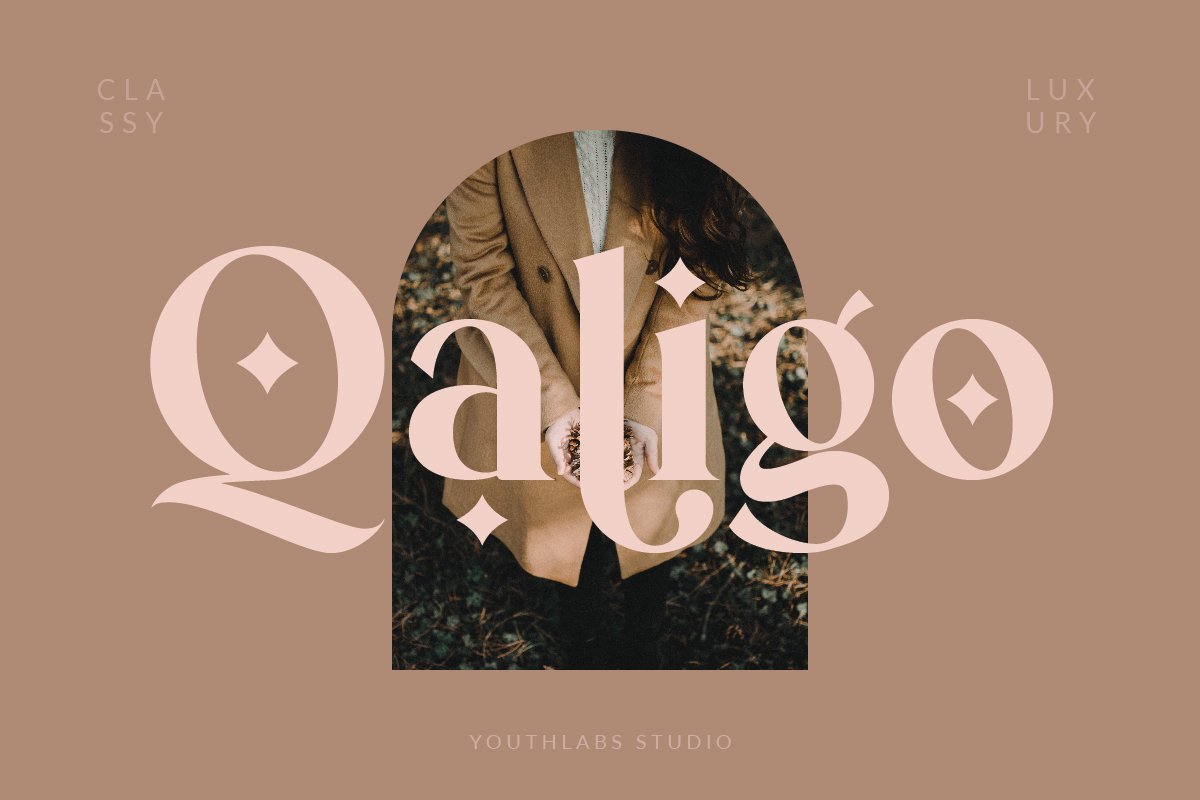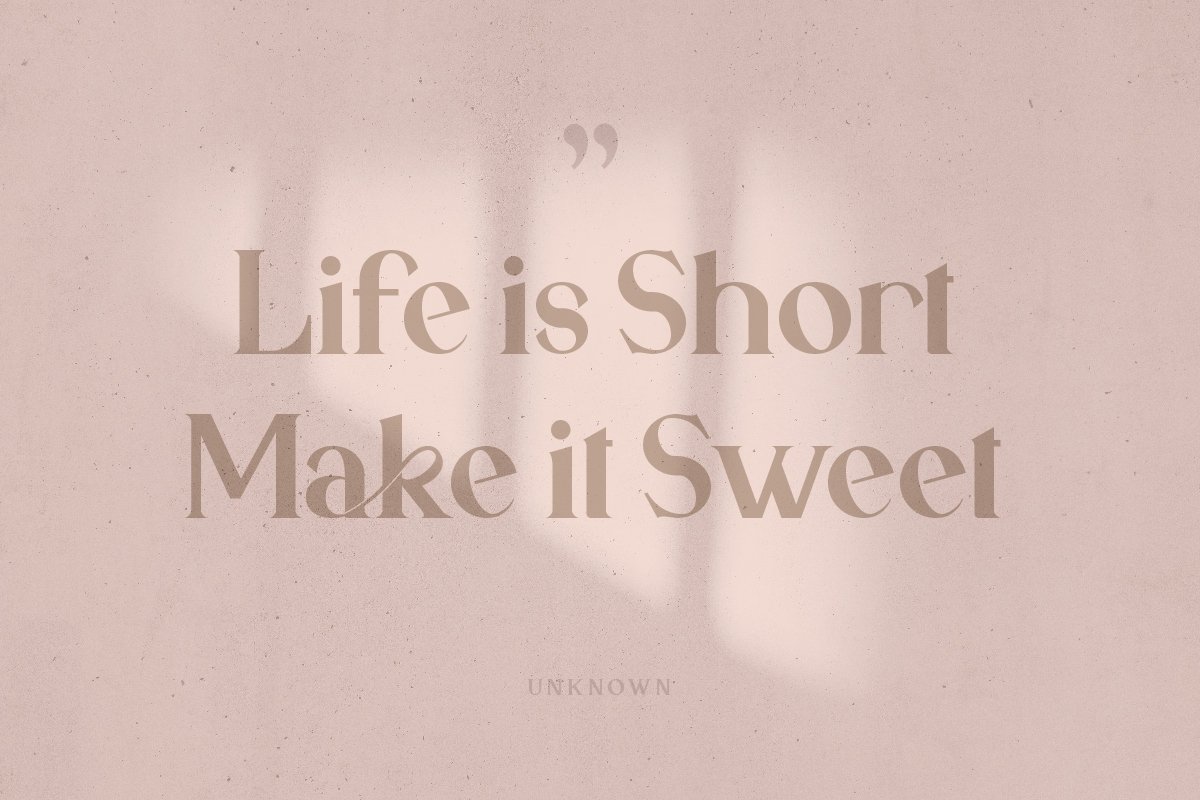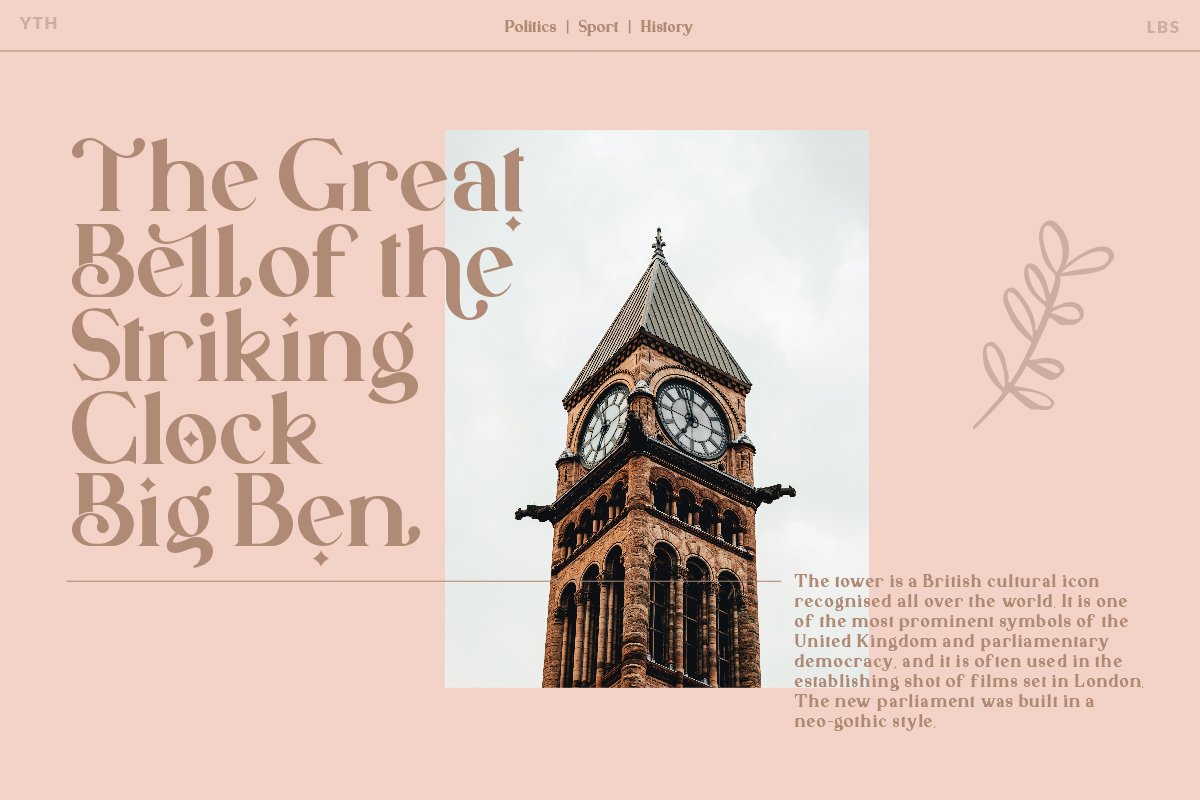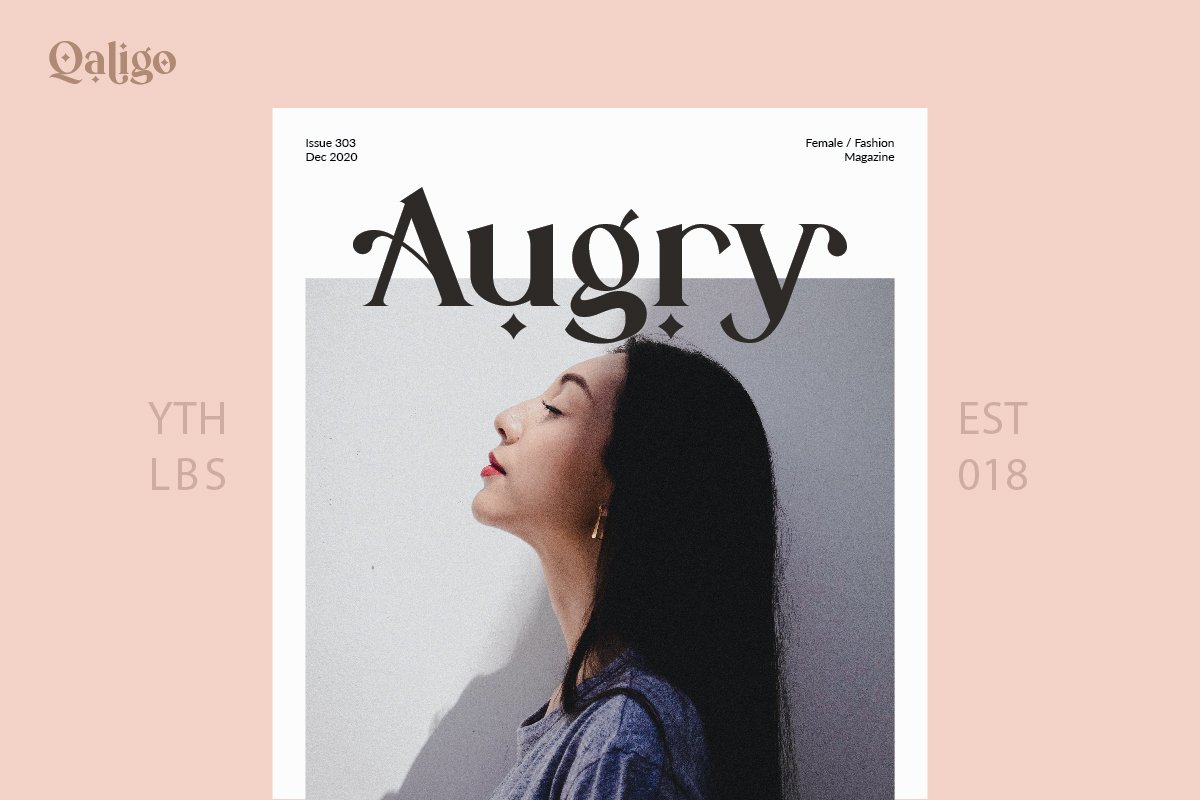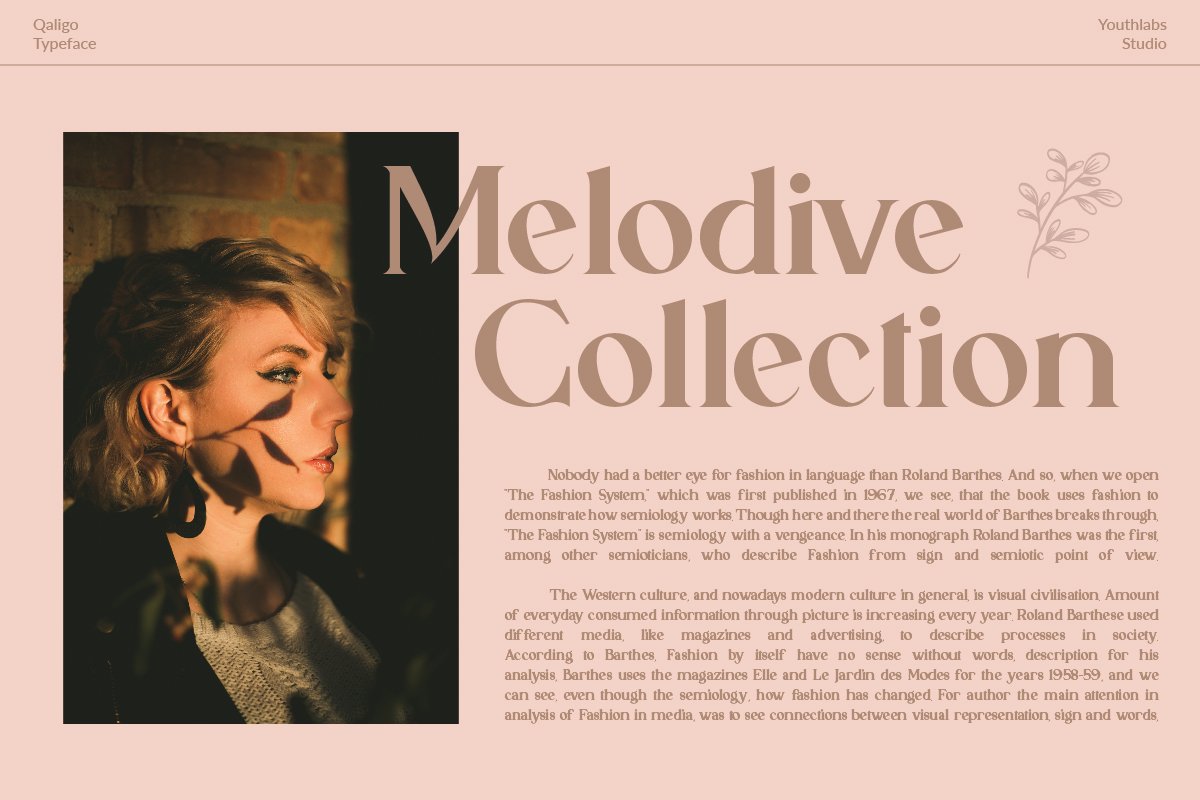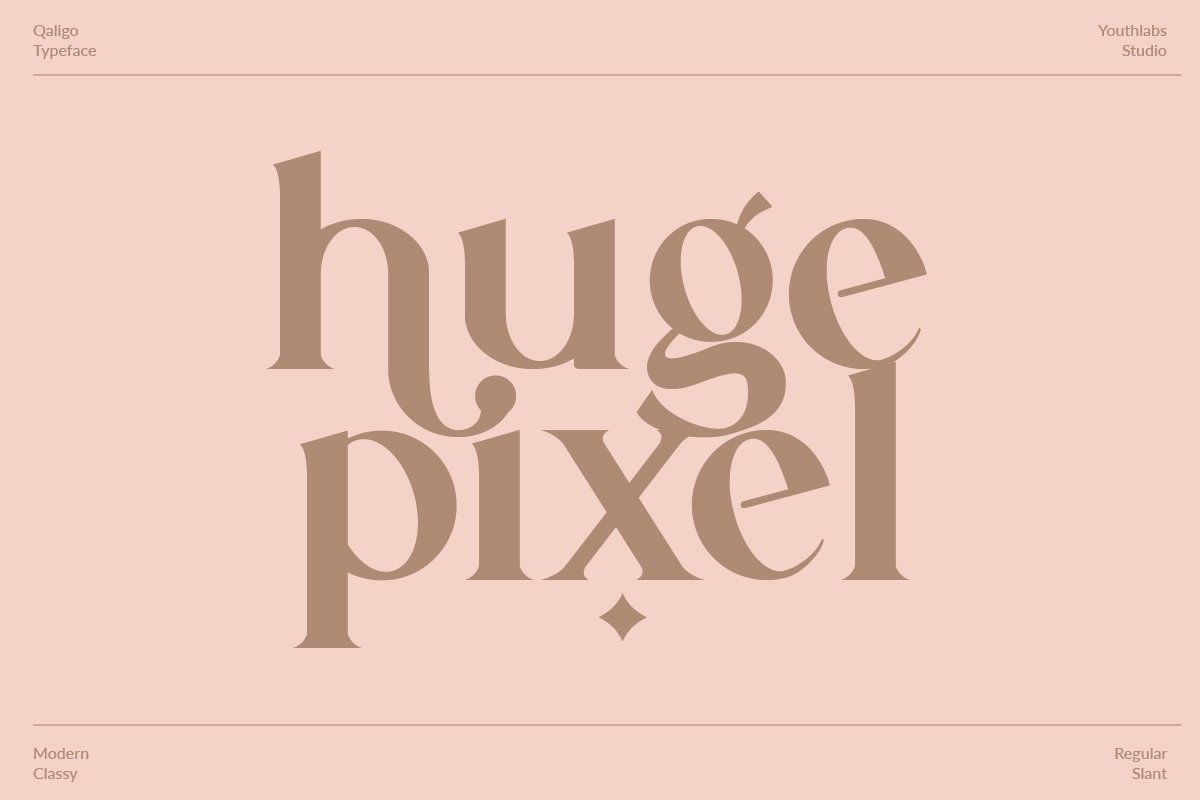
About the Qaligo Elegant Serif Font
Introducing Qaligo Serif Font – A Brand New Serif Font with Luxury Shape, More Opentype Feature, more neat curvesQaligo Serif Font Inspired by Modern and Luxury Typography, Qaligo Serif Font is a very versatile font, you can use this font to various design, Basics can improve more than 250 alternates character where can collaborate with premade logos